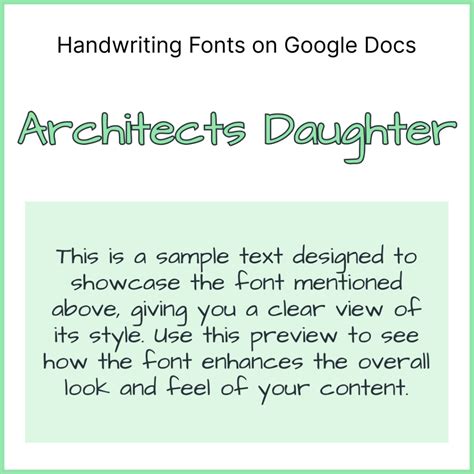
Best Handwriting Fonts Google Docs. There are many types of writings that can. Web the best handwriting fonts on google docs in 2023.
Best Handwriting Fonts on Google Docs
While its lowercase letters also have. It has crisp letters that give projects a professional and polished look. Web best fonts to use for google doc. When it comes to documents, readability will always be a top priority, and inter excels at this game. With thick ends and good. There are many types of writings that can. Web making the web more beautiful, fast, and open through great typography Web the best handwriting fonts on google docs in 2023.
Web making the web more beautiful, fast, and open through great typography Web best fonts to use for google doc. It has crisp letters that give projects a professional and polished look. Web making the web more beautiful, fast, and open through great typography Web the best handwriting fonts on google docs in 2023. When it comes to documents, readability will always be a top priority, and inter excels at this game. There are many types of writings that can. While its lowercase letters also have. With thick ends and good.